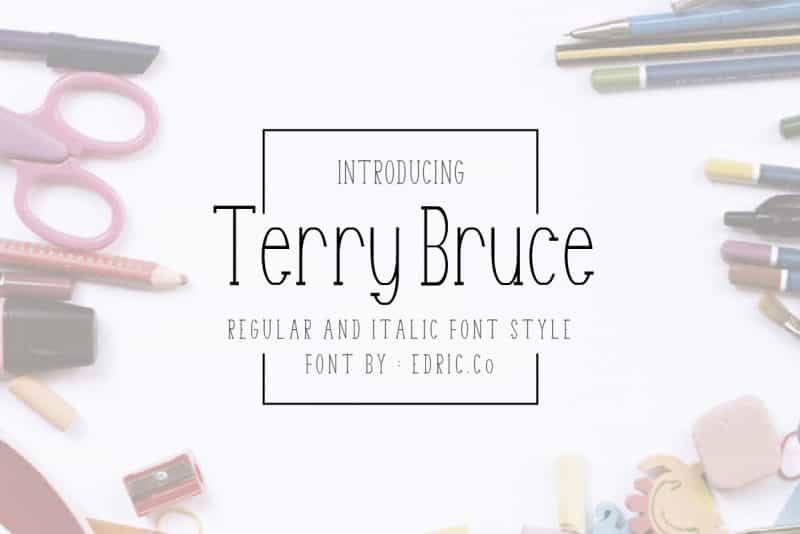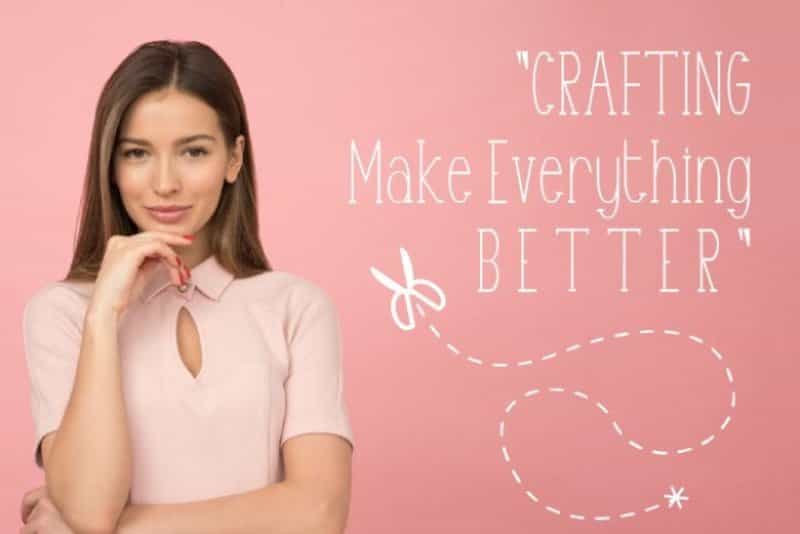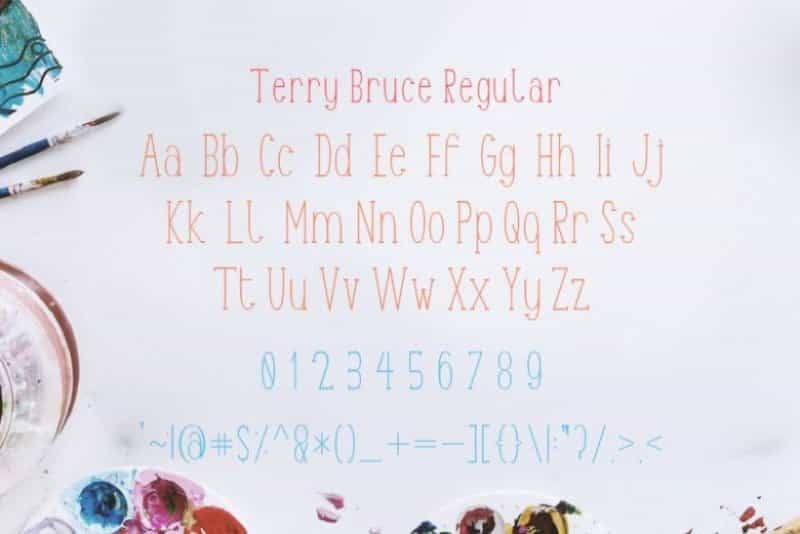
Discover TerryBruce Sans Serif Font, part of the Sans Serif collection—a versatile and unique font perfect for adding a personal touch to your projects. Download it for free and enjoy crafting designs with style, from invitations to social media posts. This font is available exclusively for personal use, giving you the freedom to create without limits. Unlock your creativity with TerryBruce Sans Serif Font today!
Yes, this is a new type. Observe the edge, observe the round, and you will see that this typeface is like no other before. It’s Not Perfect, that’s why it is so attractive. There is nothing perfect in this world, but this one is so beautiful. It is perfect for headline, stationery brands, logos with unique sans and quote social media posts.